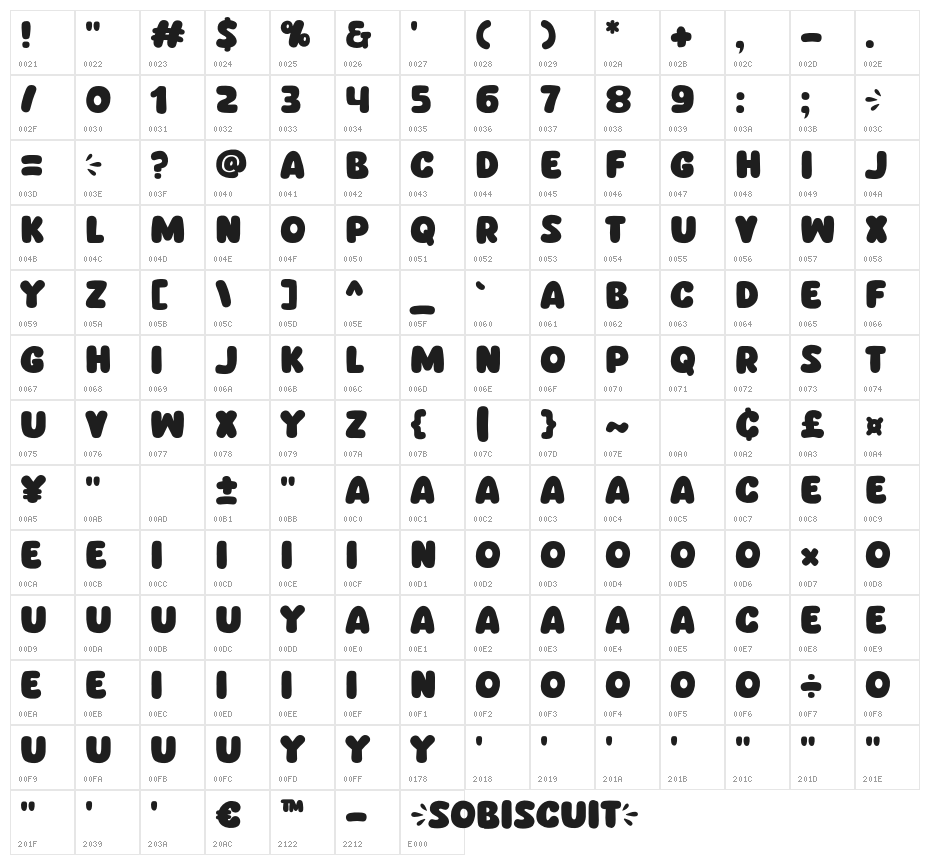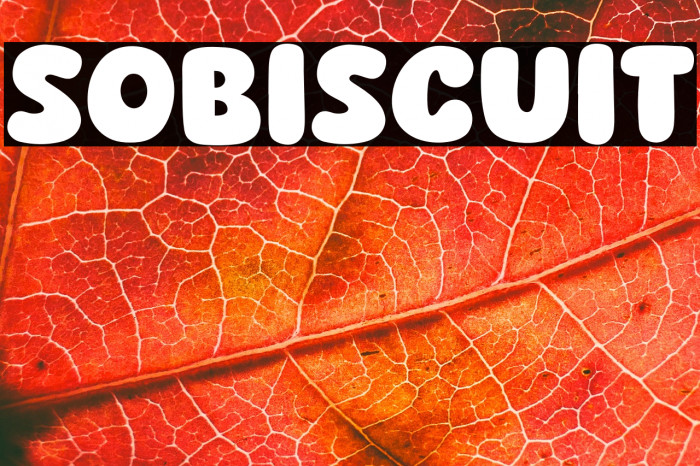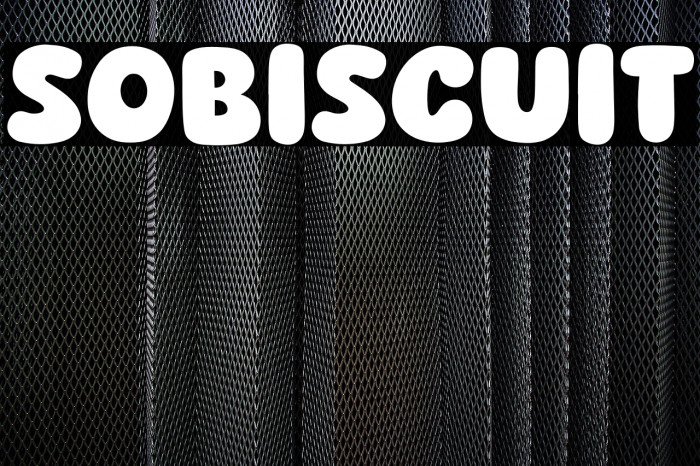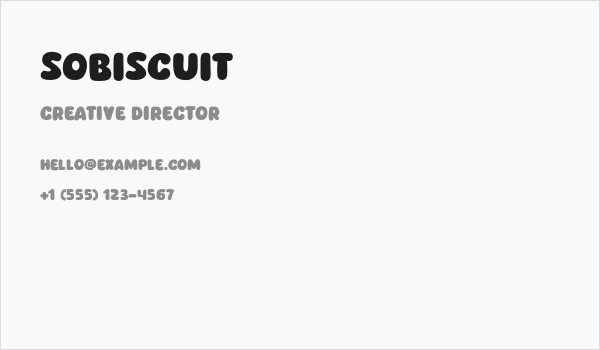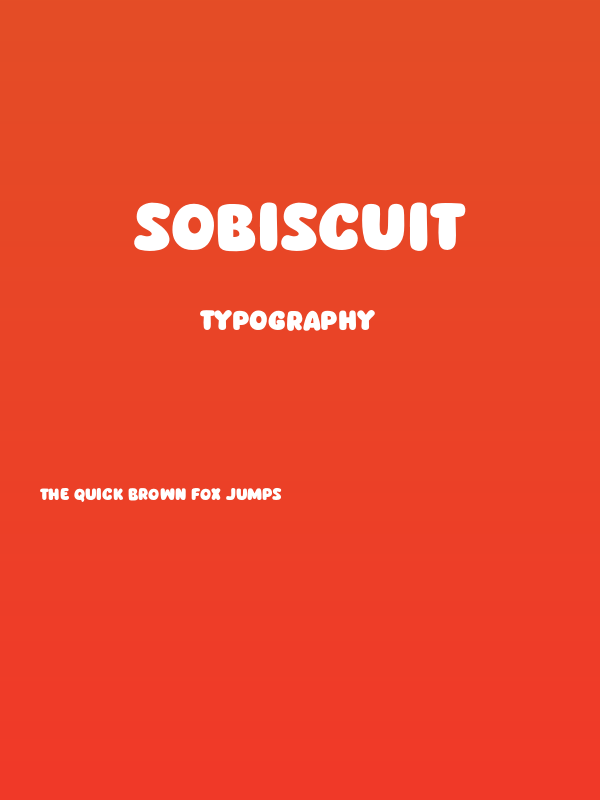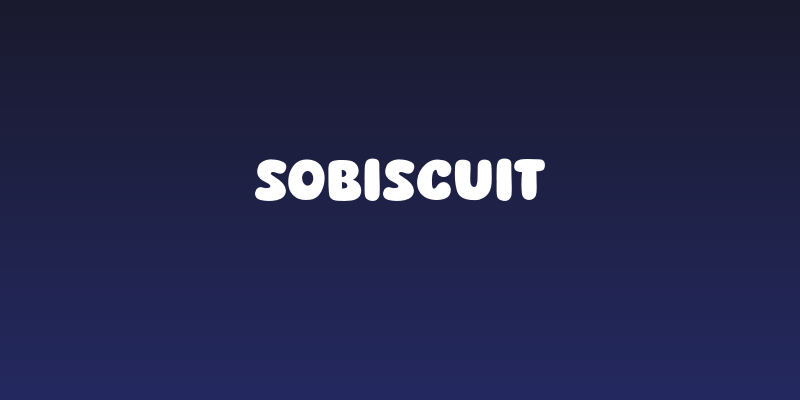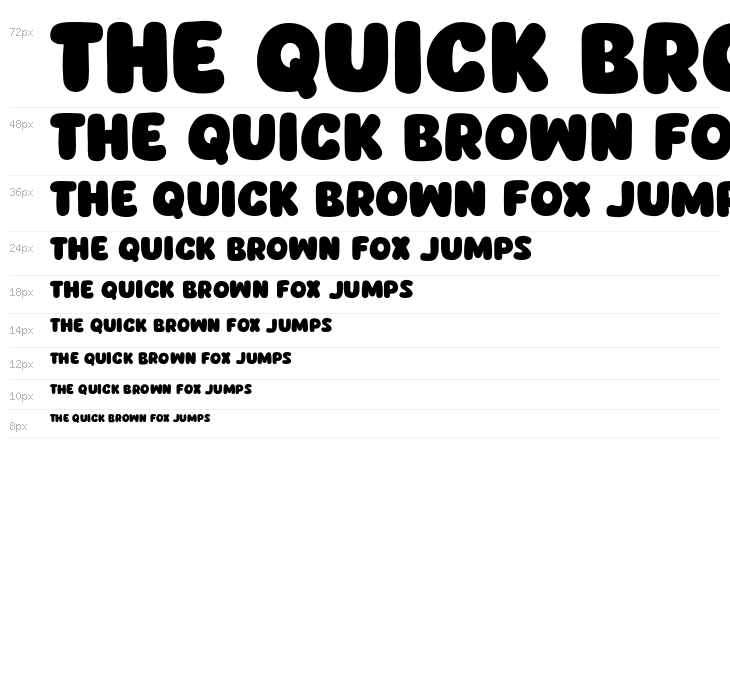
Sobiscuit Font
Sobiscuit Description
This playful and bold font features rounded, bubbly characters that convey a sense of fun and approachability. The letters are uniformly thick, with a consistent stroke width that gives the font a cohesive and solid appearance. The rounded edges and lack of sharp angles contribute to its friendly and informal style, making it ideal for projects that aim to be inviting and engaging. The font includes a full set of uppercase and lowercase letters, numbers, and a variety of special characters, ensuring versatility in its application. Its boldness ensures high visibility and impact, making it suitable for attention-grabbing designs.
| Overall Style | Playful |
| Proposed Projects | Ideal for children's books, playful branding, party invitations, and casual posters. |